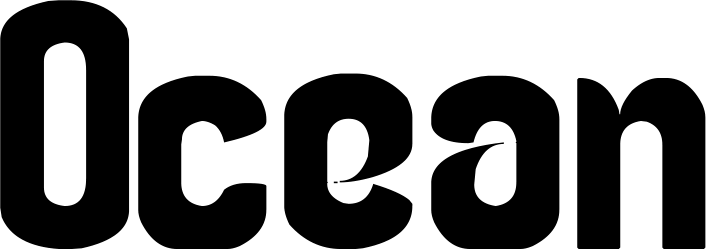
Ocean Font
Ocean font will always be with you on hot summer days. This is the best choice for flyer design along with emojis of sea waves or oysters. Also, some of the characters are like sea waves and this multiplies the charm of your project.
With this sailor font, seafood designs, seafood brands, and even seafood restaurant menus will be the best output for your audience and customers.